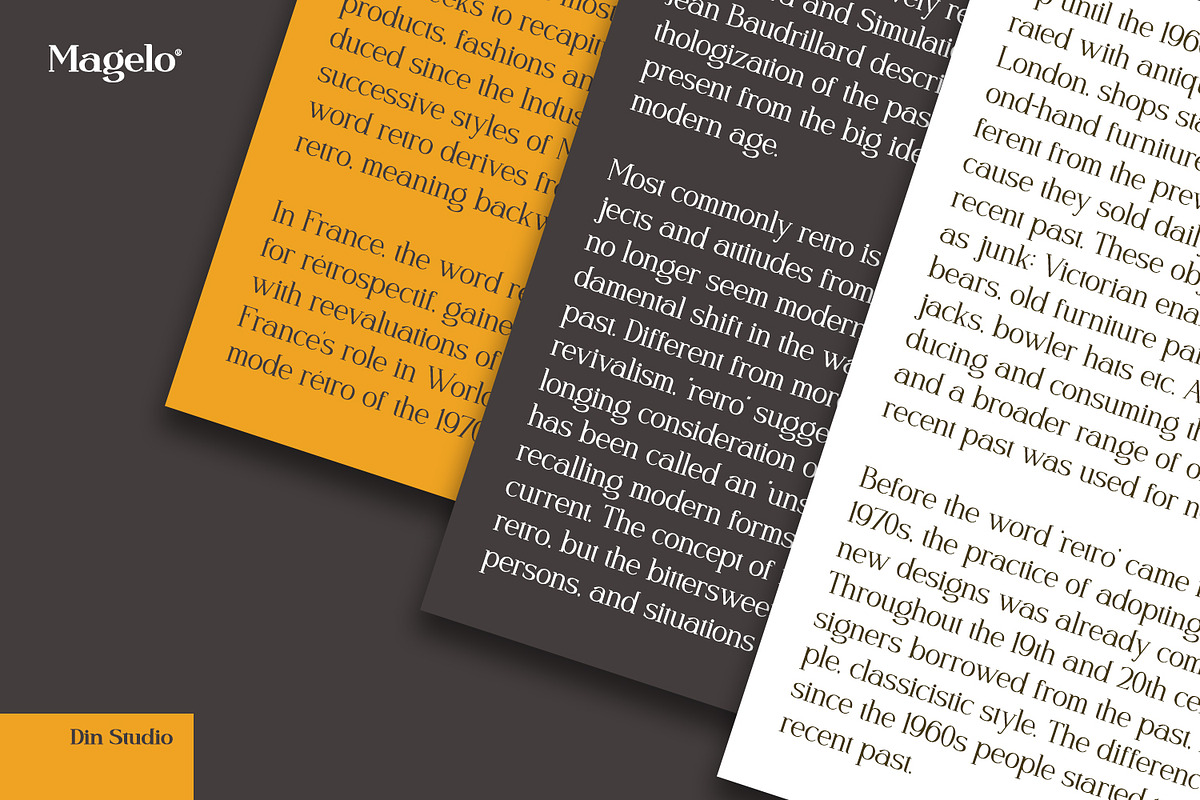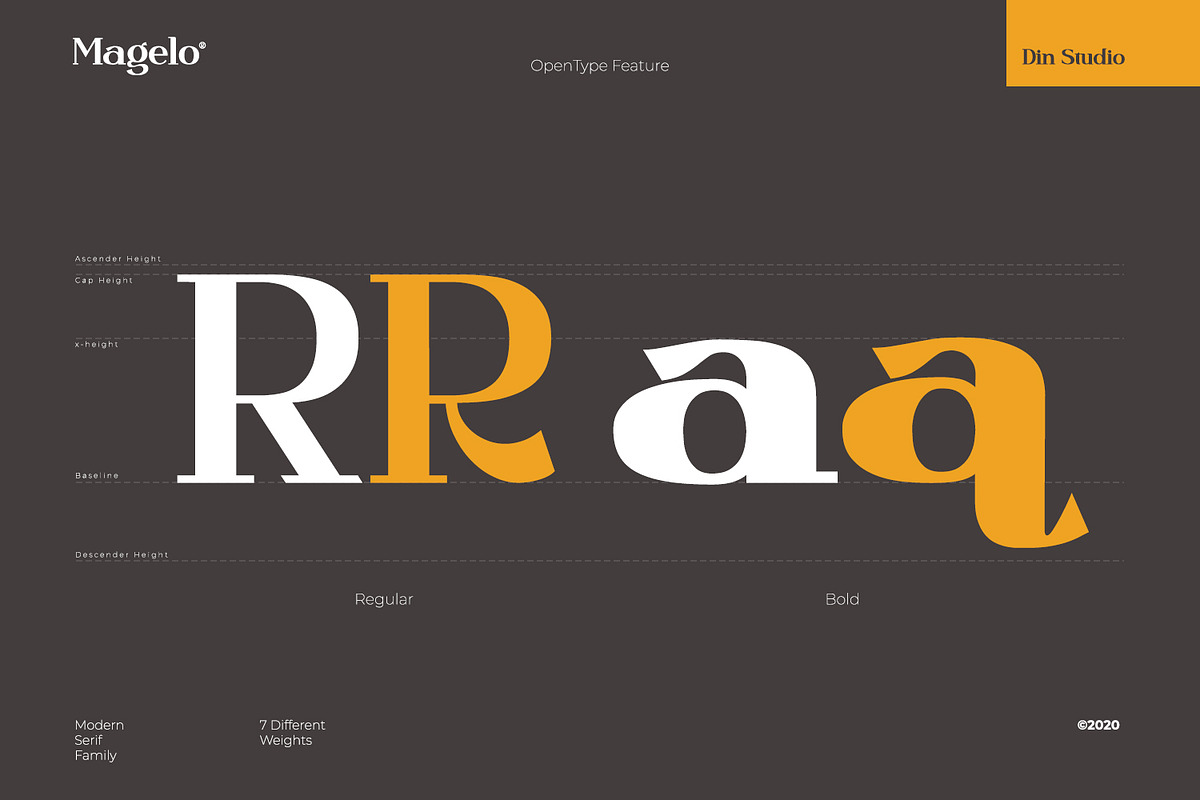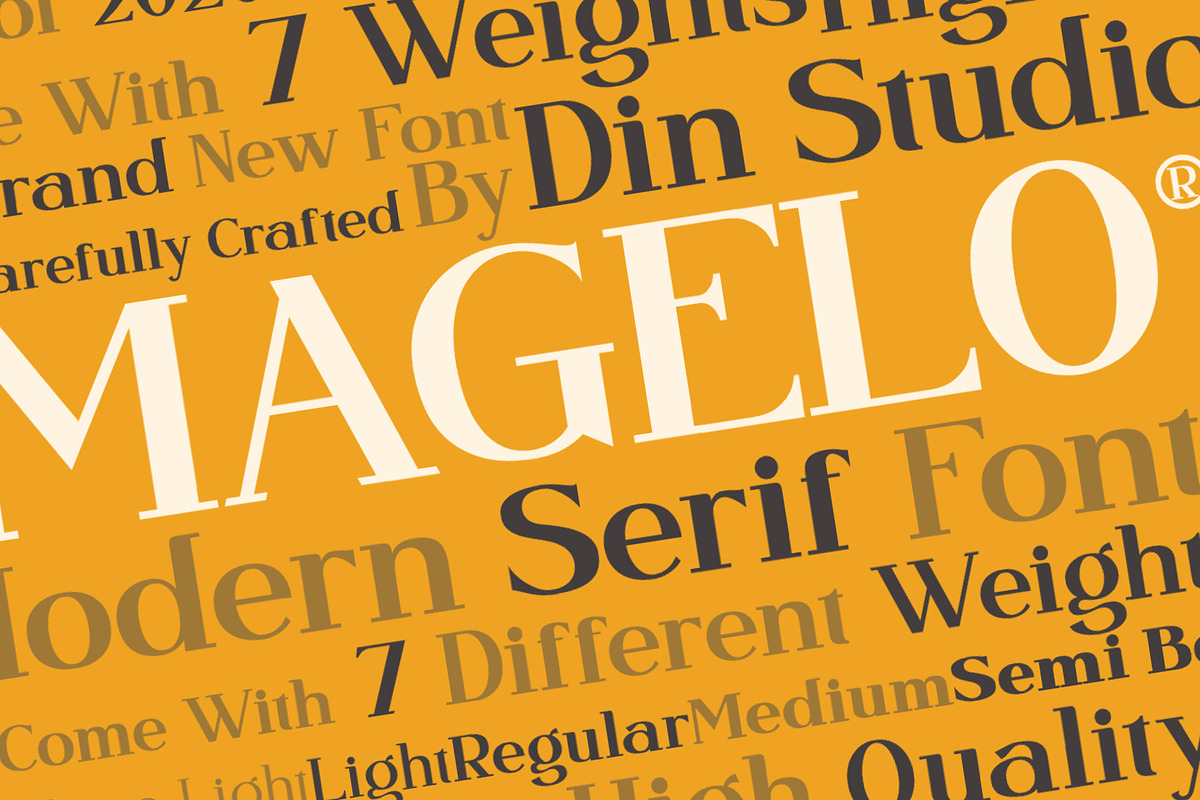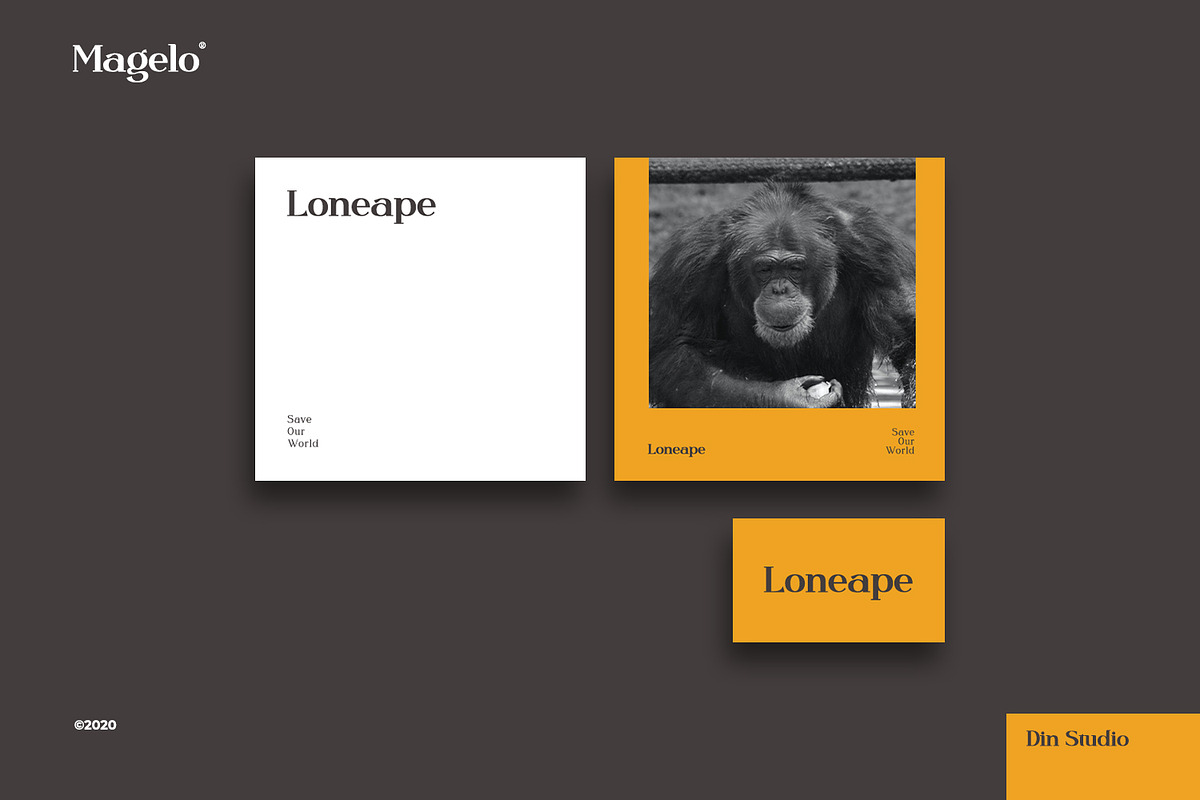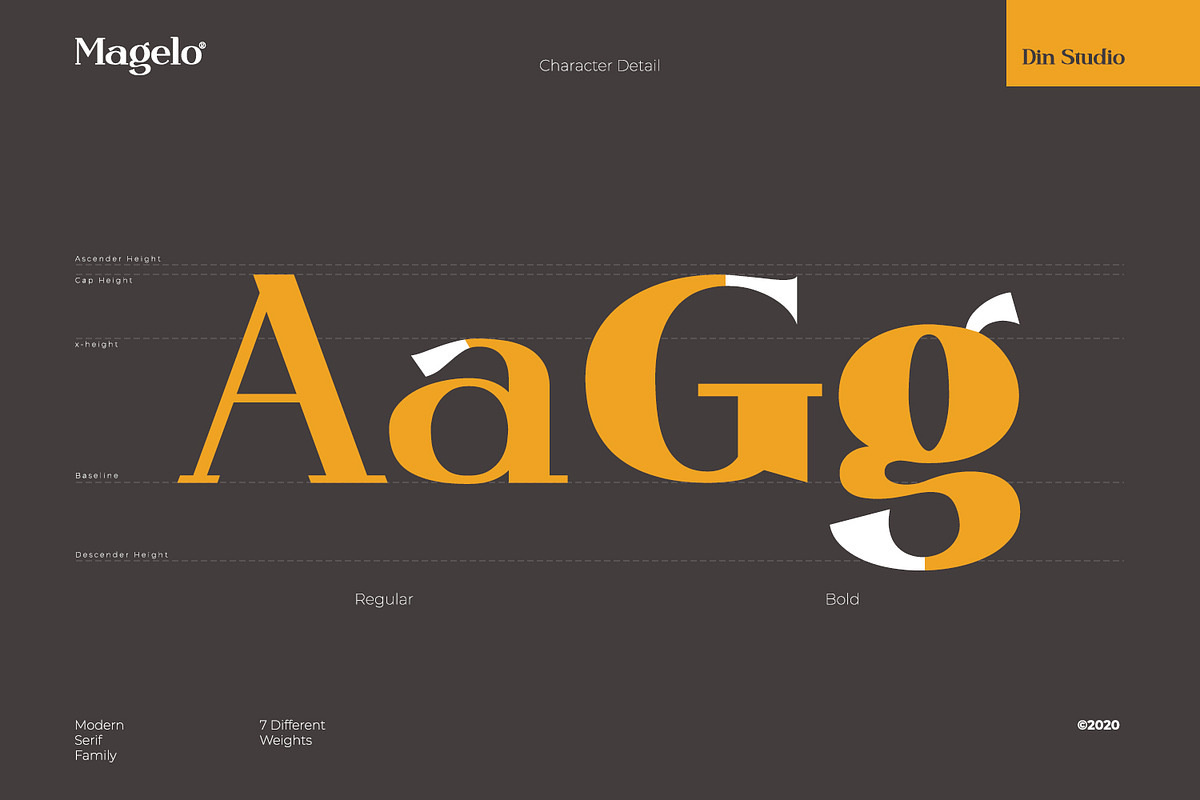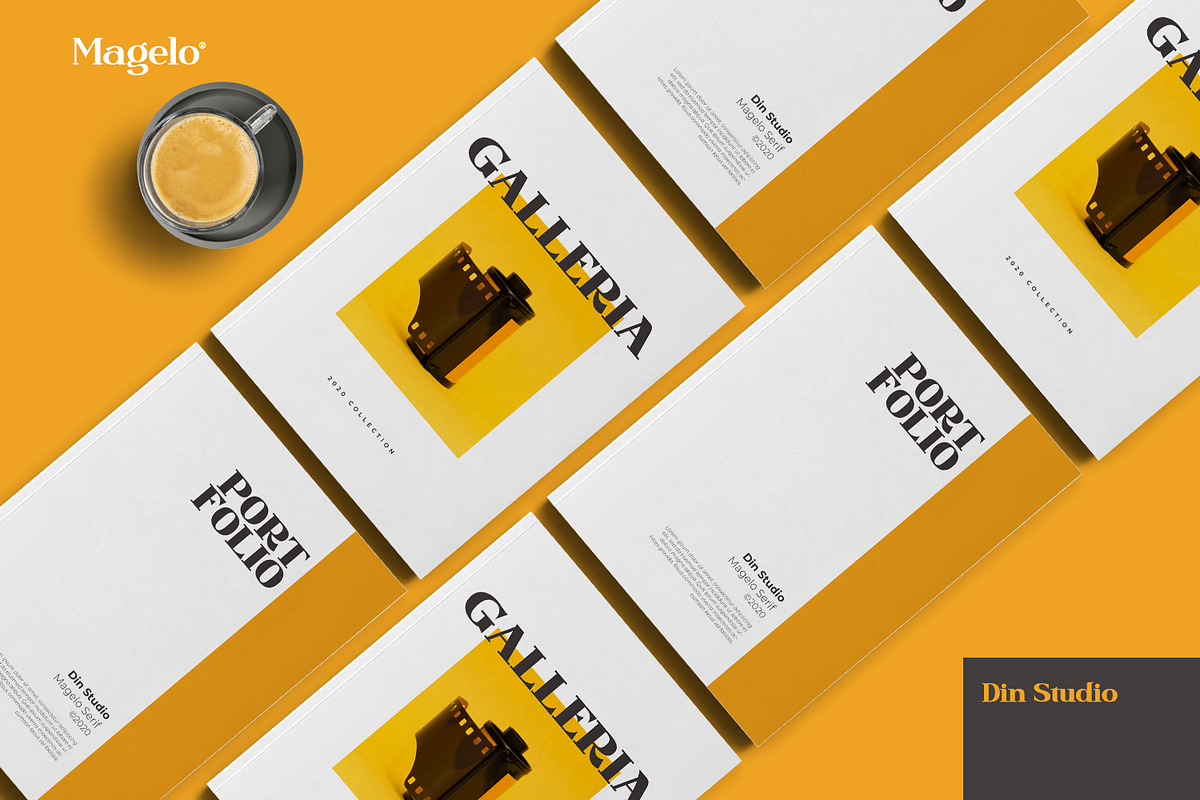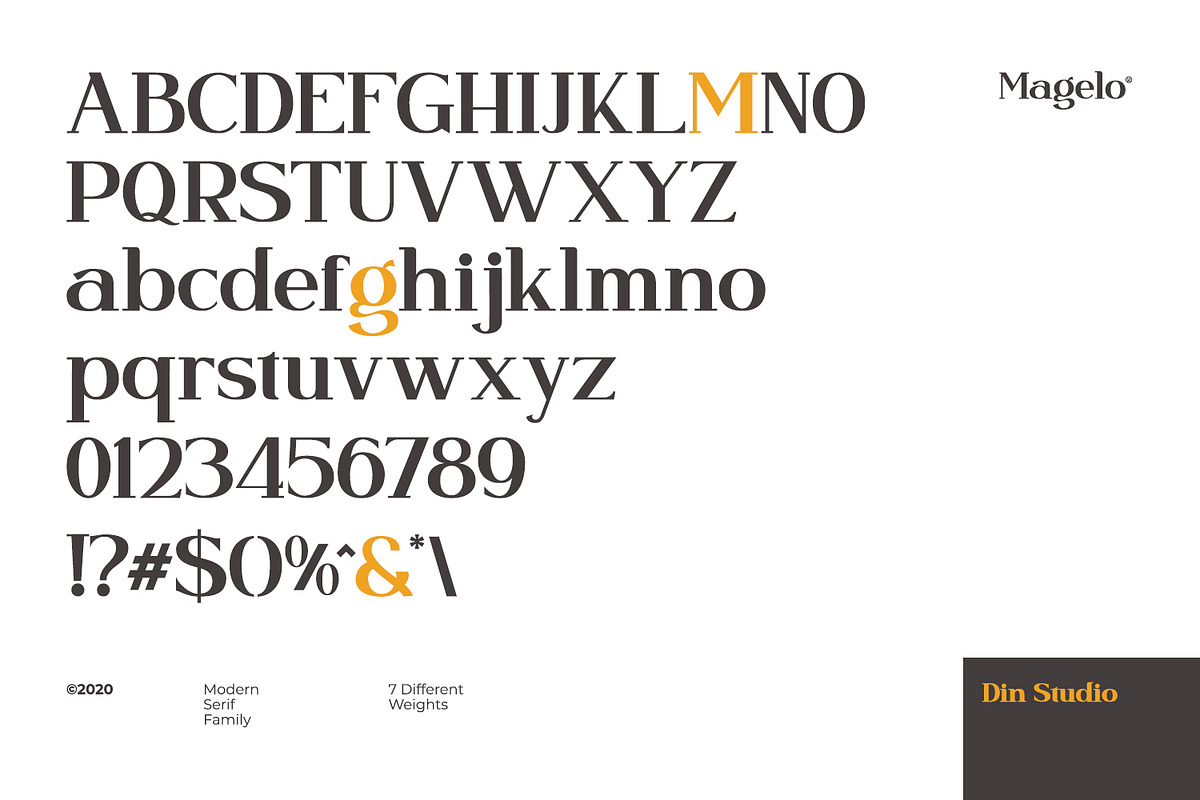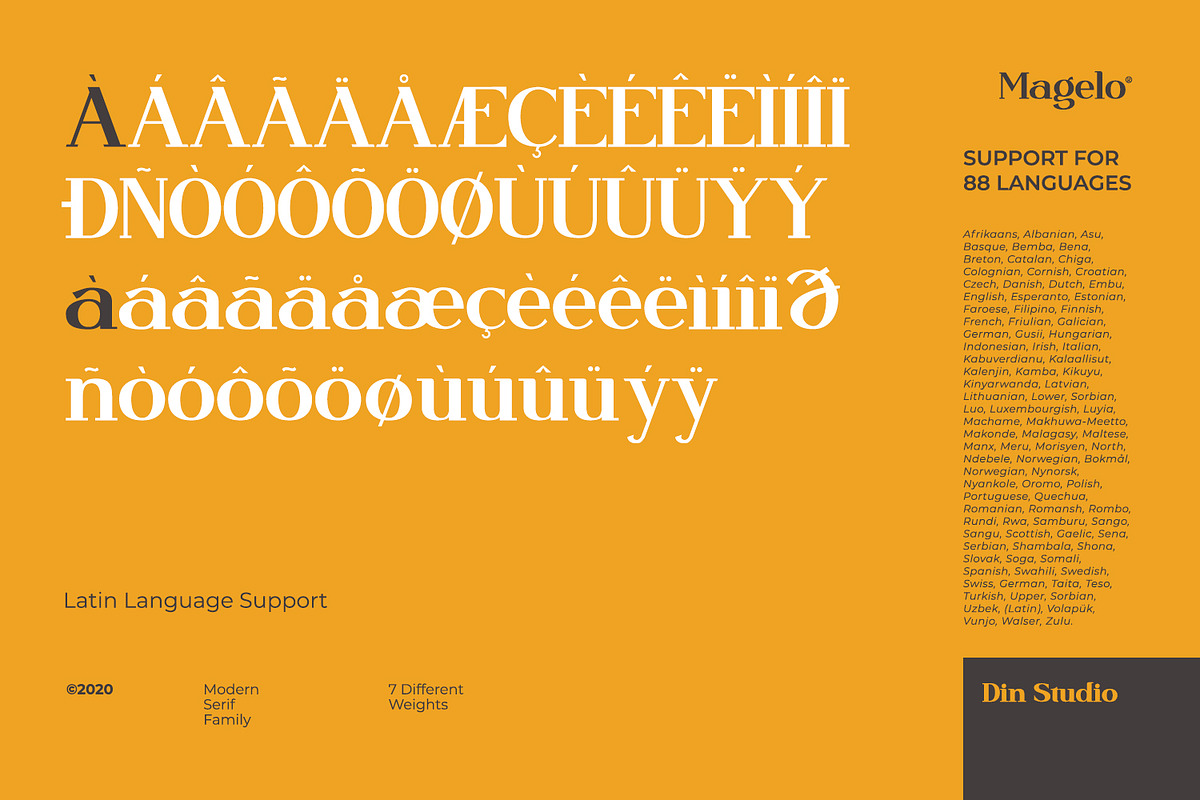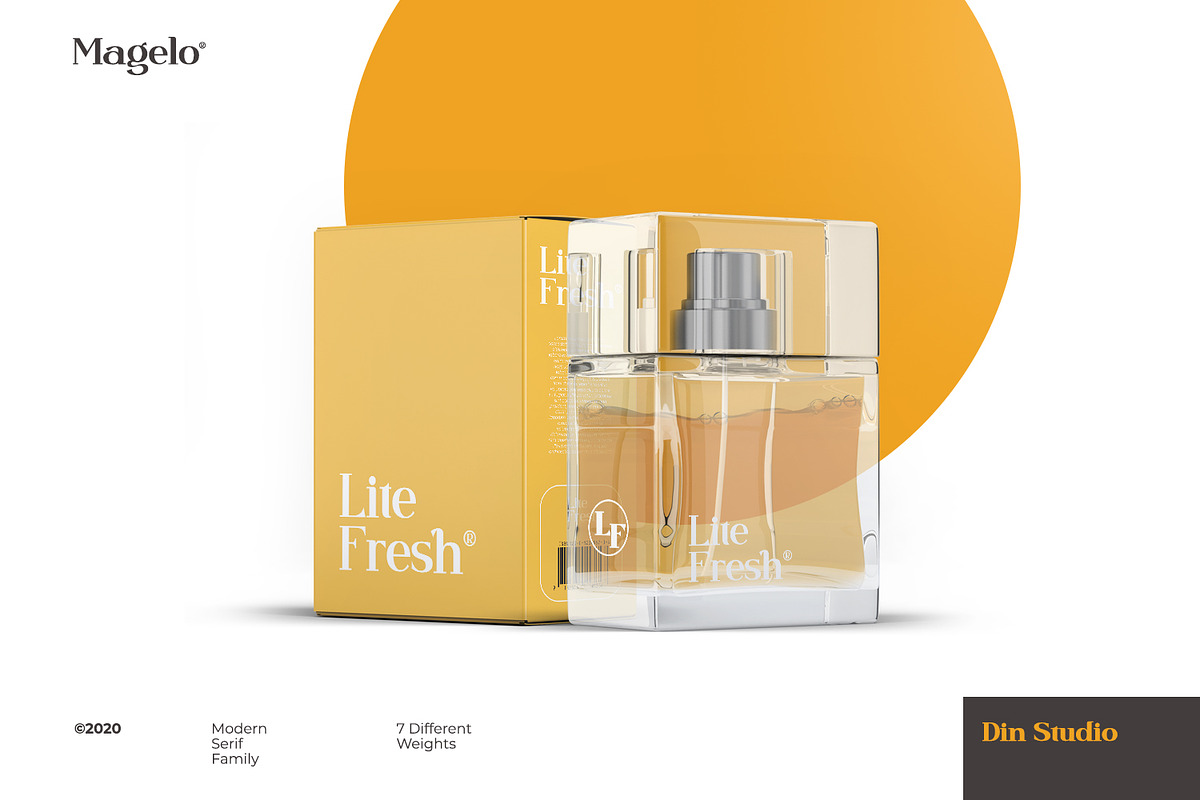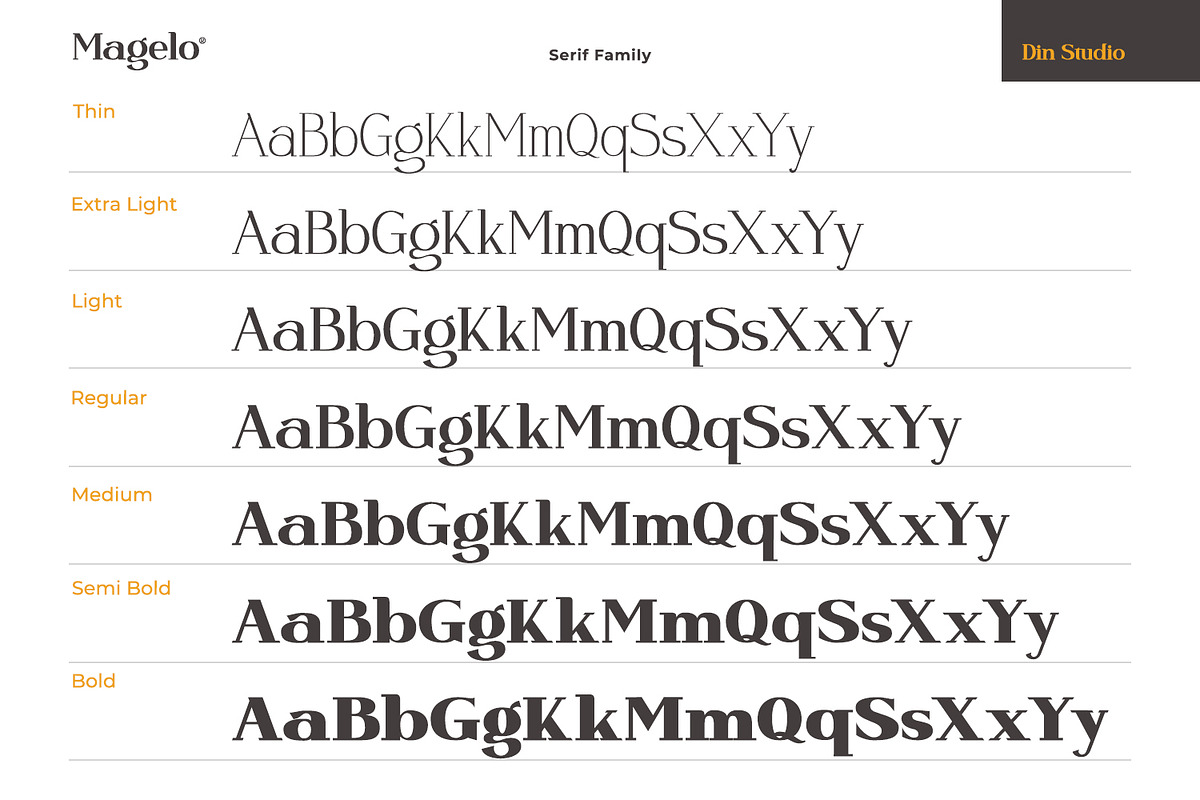
Magelo
Are you ready to make your branding bold? Looking for a statement font that will engage your audience? A font which makes your branding stand out? Then we’ve got the answer: Magelo – A Serif Font Family.
With this package you will get many options to maximize your designs with stylish fonts. It will delight and add brightness, modernity and elegance to wherever it is used.
Inspire your audience, clients, or guests with this beautiful, statement font.
- Magelo Thin
- Magelo Extra Light
- Magelo Light
- Magelo Regular
- Magelo Medium
- Magelo Semi Bold
- Magelo Bold
Magelo fits best for any design projects, such as posters, banners, logos, book covers, album covers, quotes, invitations, greeting cards, name cards, headings, printed products, merchandise, social media, etc. Find out more ways to use this font by taking a look at the font preview.